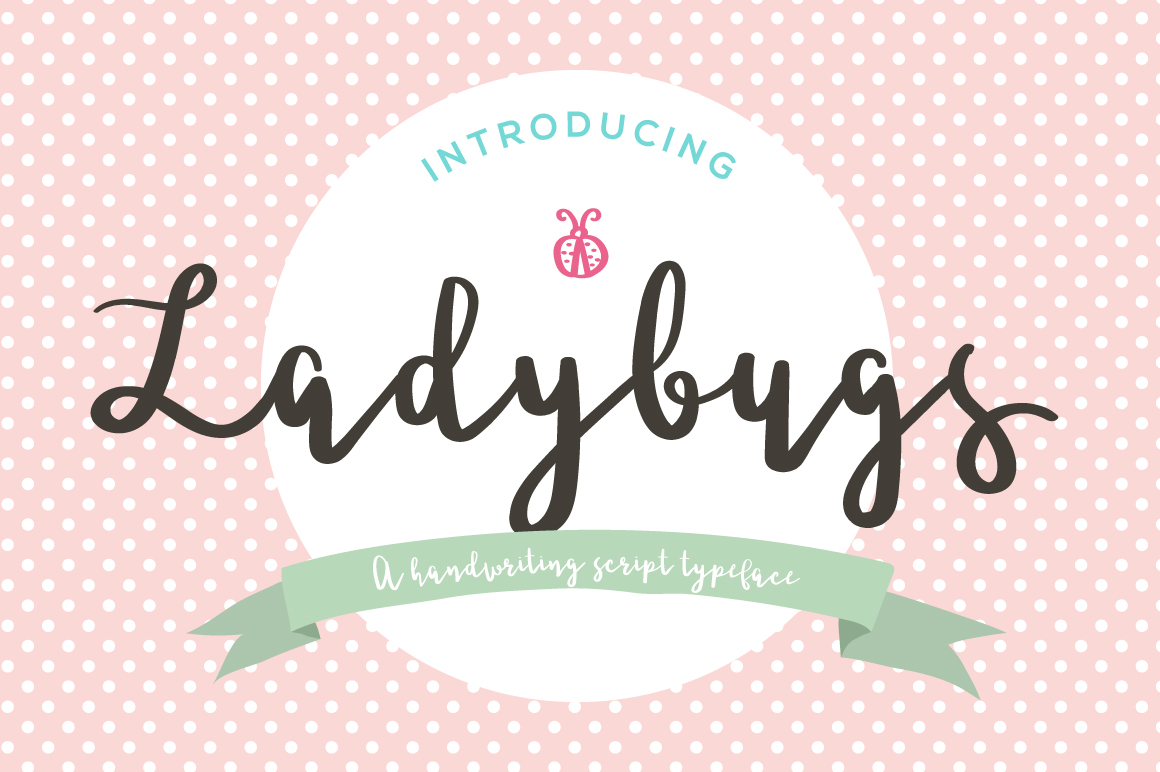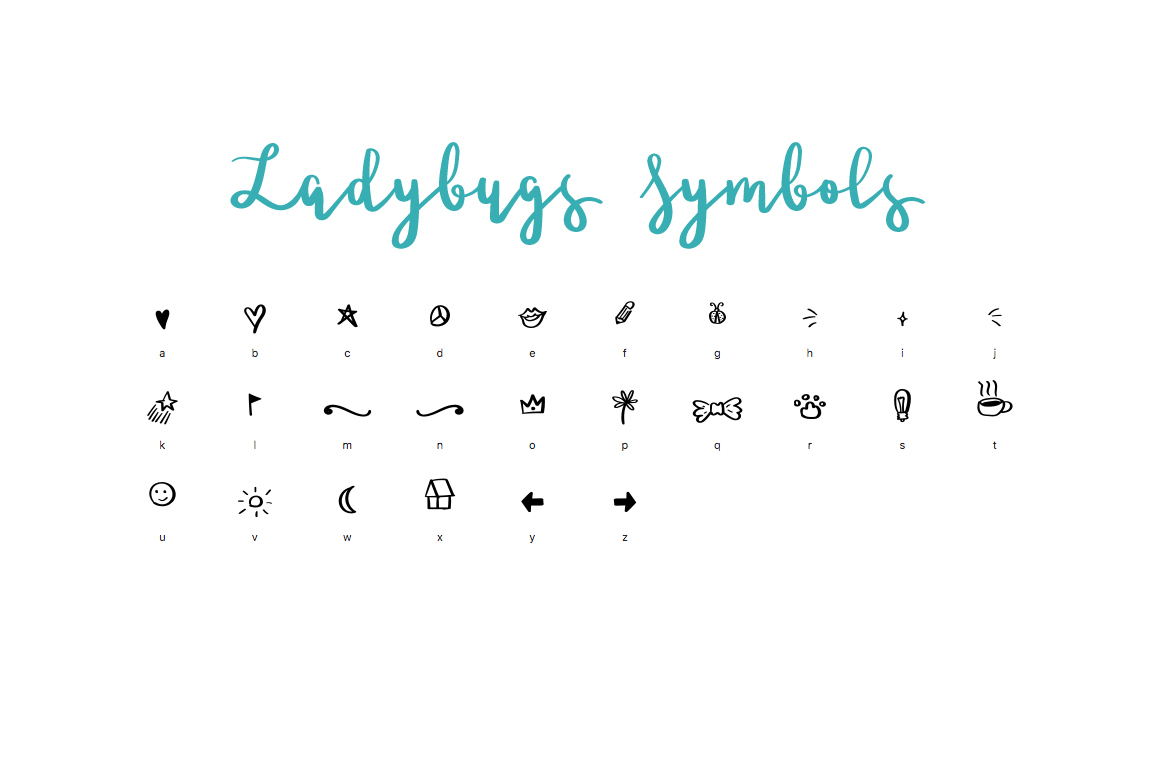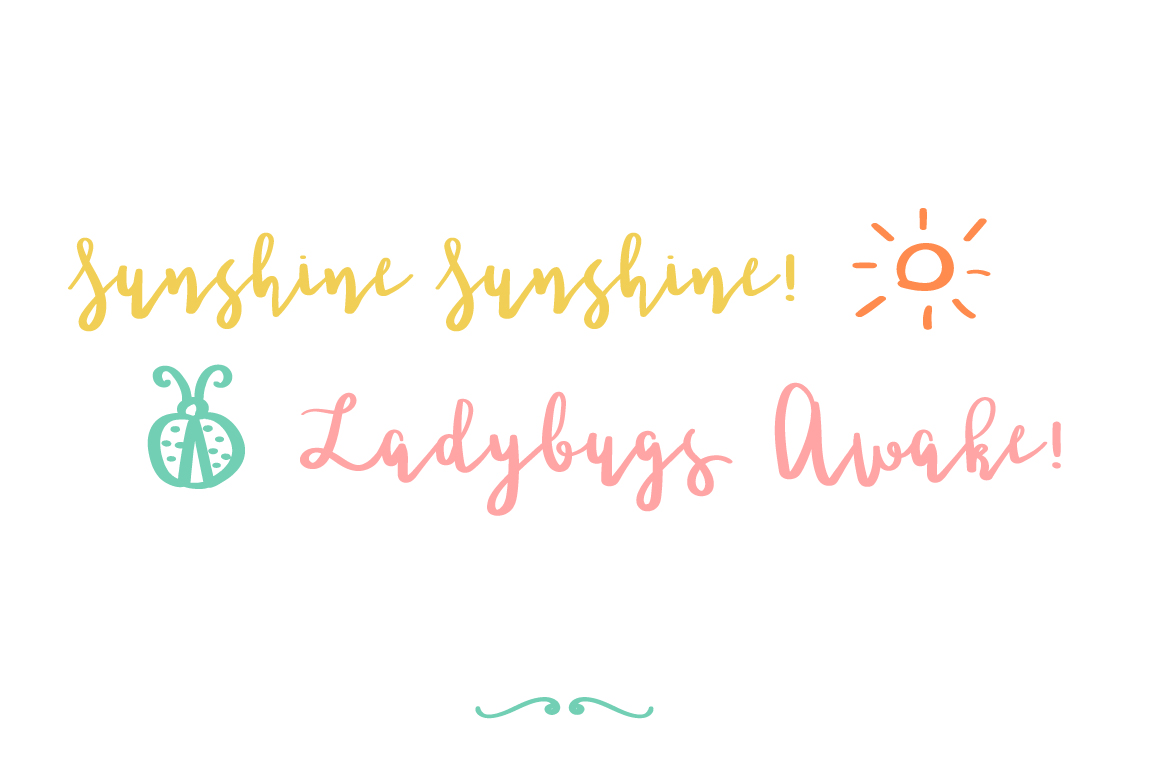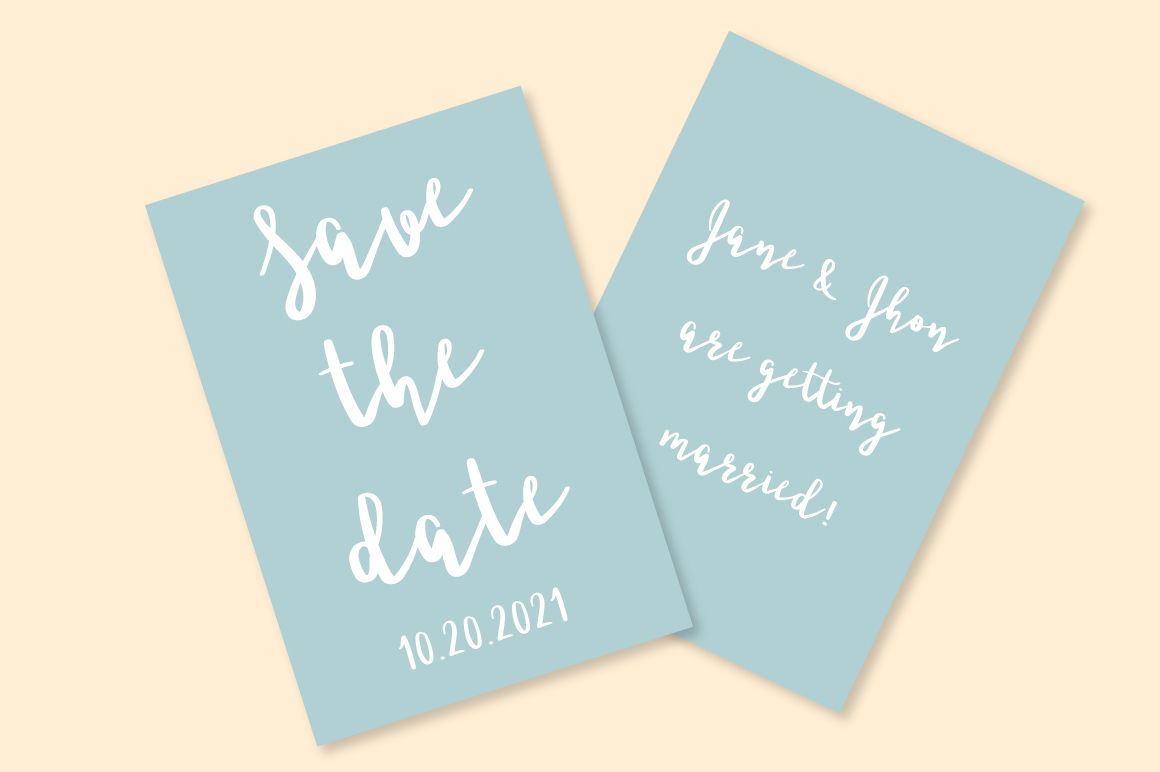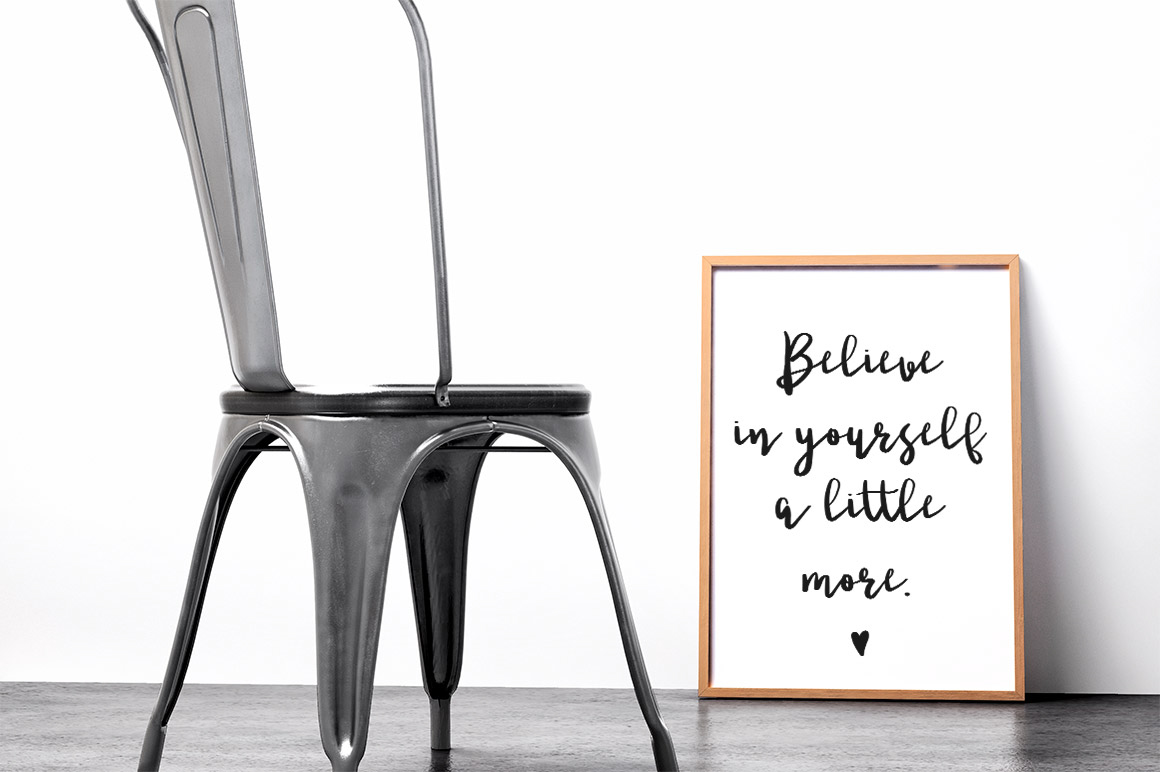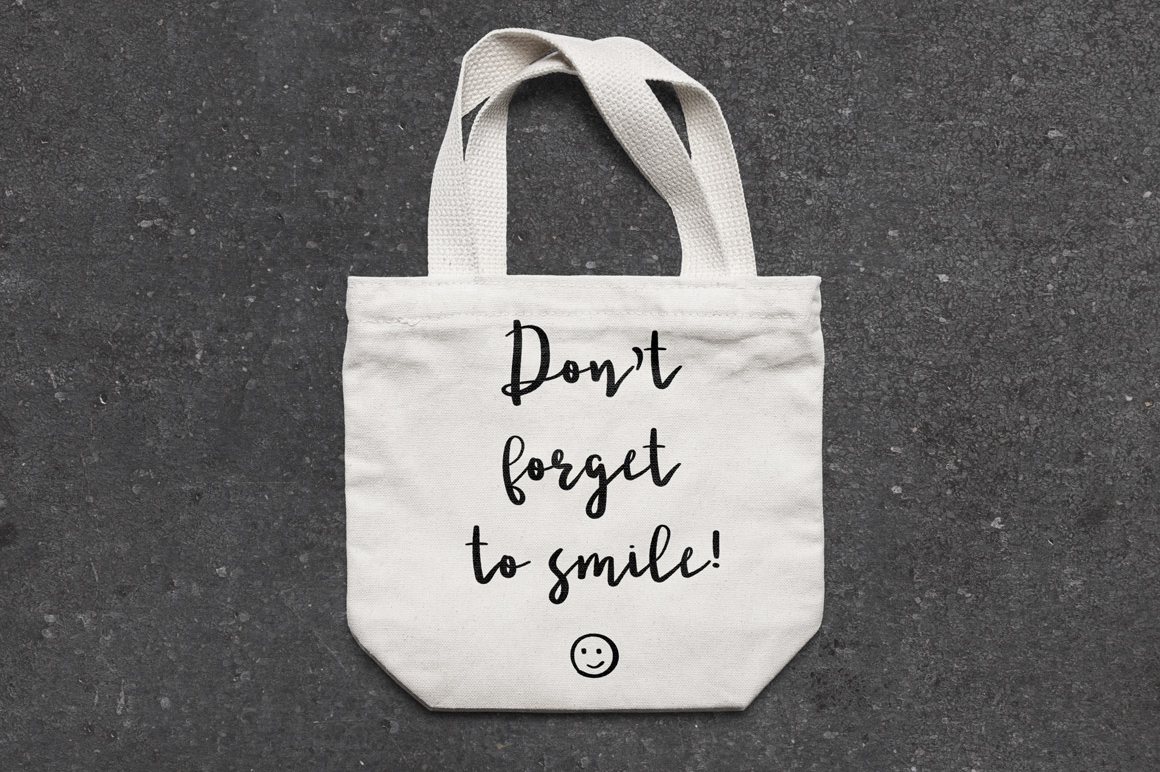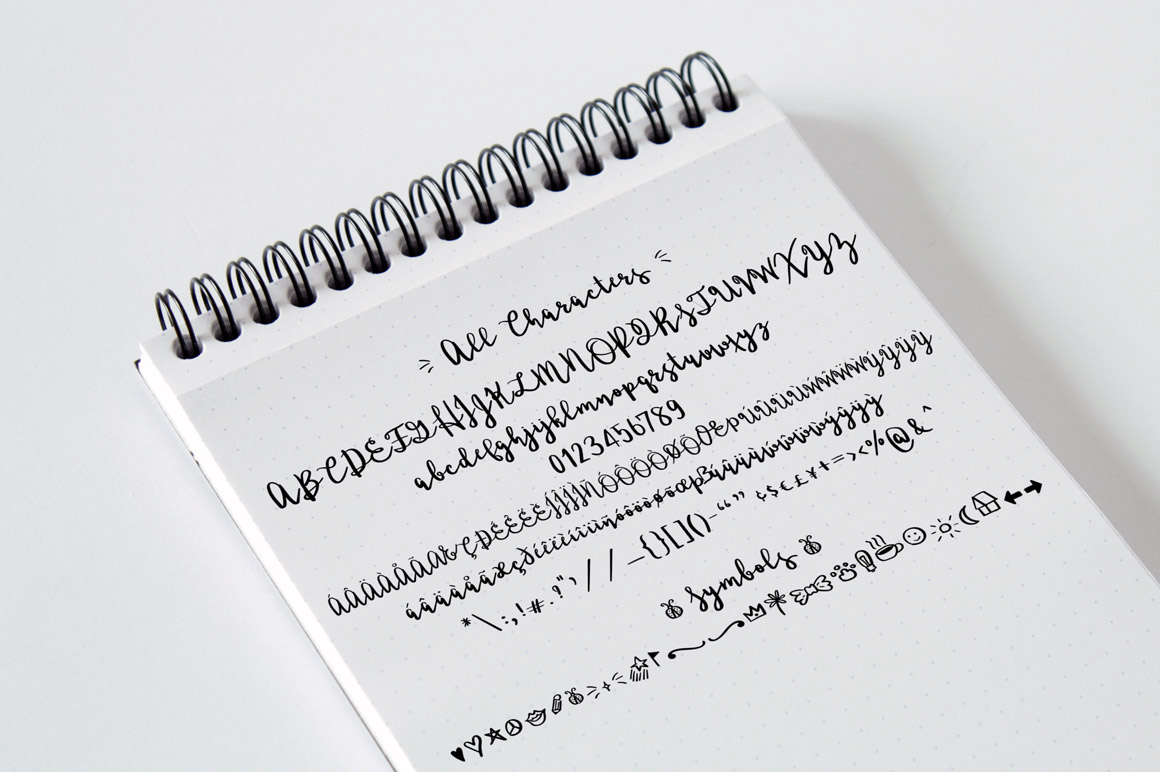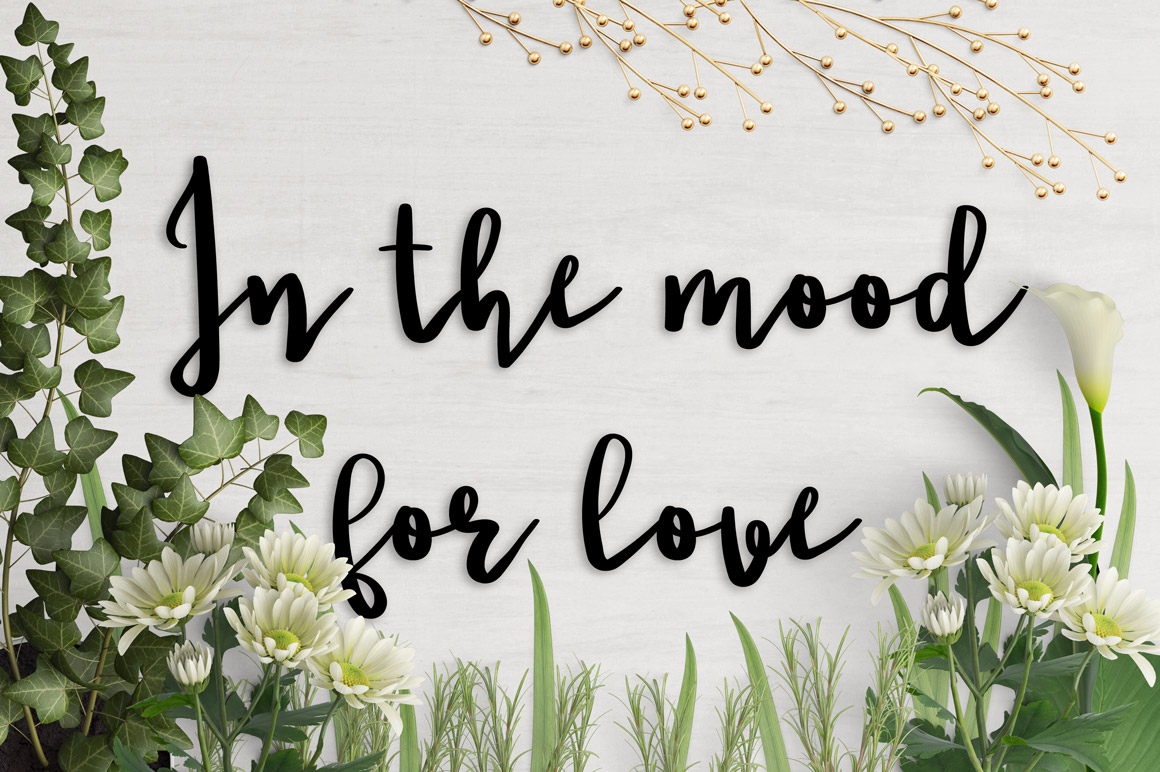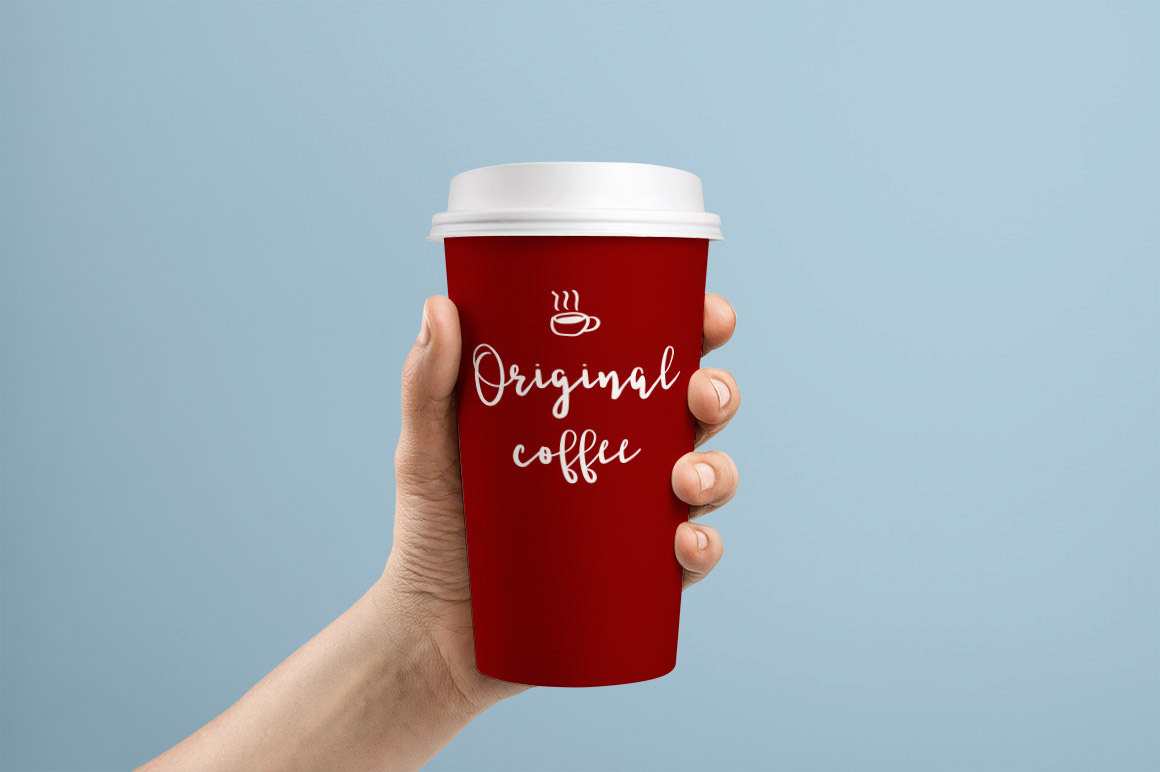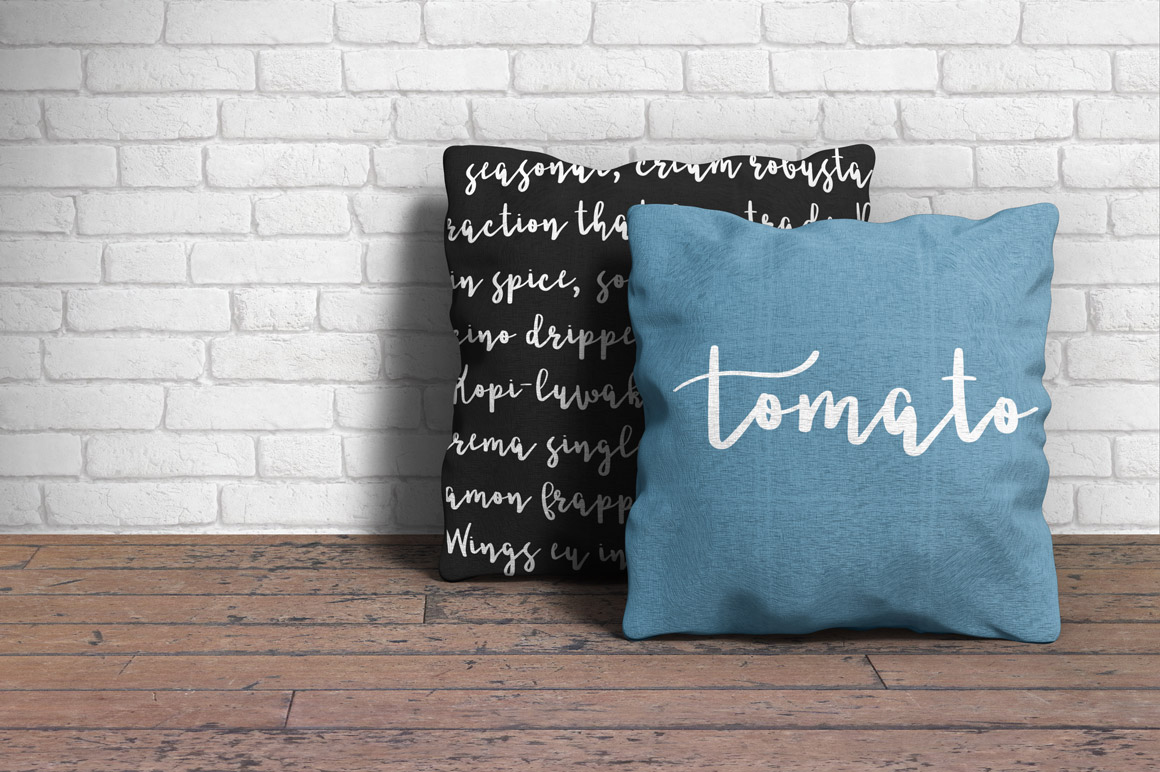
HomeScript FontsLadybugs Font Script Fonts Ladybugs Font FacebookXPinterestWhatsApp Ladybugs Font Poster 2 Ladybugs Font Poster 3 Ladybugs Font Poster 4 Ladybugs Font Poster 5 Ladybugs Font Poster 6 Ladybugs Font Poster 7 Ladybugs Font Poster 8 Ladybugs Font Poster 9 Ladybugs Font Poster 10 Ladybugs Font Poster 11 About Ladybugs Font Ladybugs is a sweet handwritten script that has a cute, relaxed vibe. DOWNLOAD NOW People also explored Woodend Font Wayang Font Preta Gutemberg Psalter Gotisch Duo Font Signewi Font Azuki Animal Font Black Pink Signature Yadawi Font 298 0 TagsLadybugs Font Previous articleA Perfect Place FontNext articleWahhabi Script Font LEAVE A REPLY Cancel reply Comment: Please enter your comment! Name:* Please enter your name here Email:* You have entered an incorrect email address! Please enter your email address here Website: Save my name, email, and website in this browser for the next time I comment. Personal Use Free Mandarins Personal Use Free Read more about this font Burgie Personal Use Free Read more about this font Fontmageddon Personal Use Free Read more about this font Vanity Personal Use Free Read more about this font BLOG Top 10 Handwritten Fonts That Elevate Your Designs Top 10 Handwritten Fonts That Will Elevate Your Designs Handwritten fonts bring a warm, personal touch to every creative project. Whether you're designing logos, invitations,... The 10 Best Handwriting Fonts to Add Personality to Your Designs Exploring Font Trends Fonts That Capture the Spirit of New York City